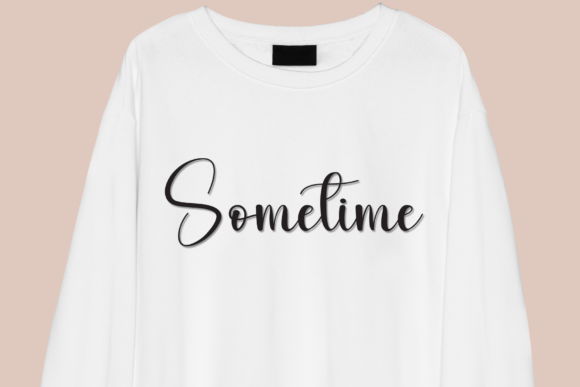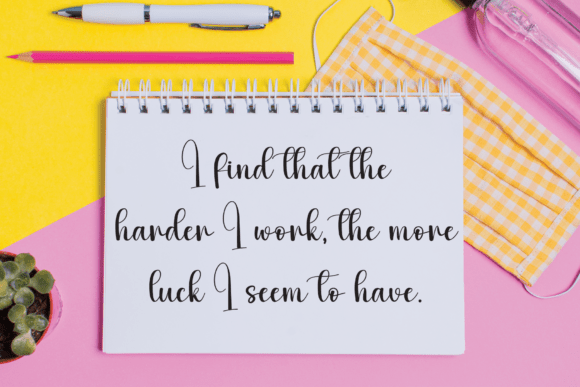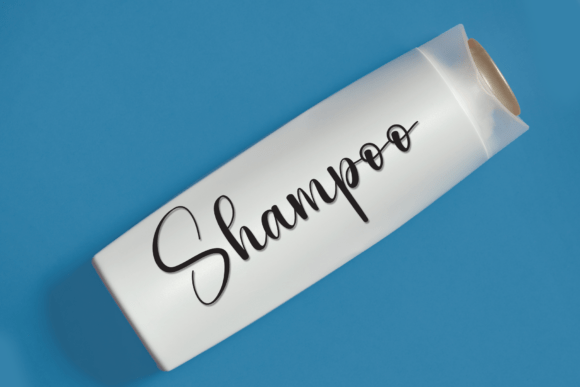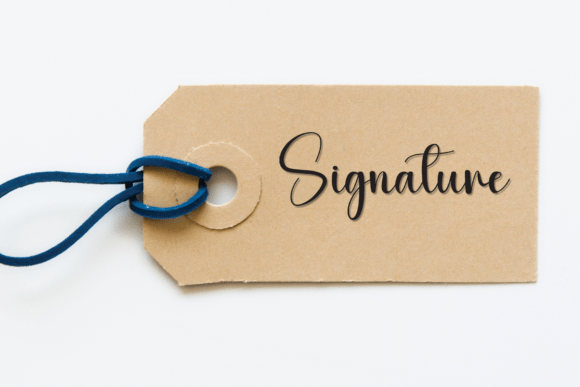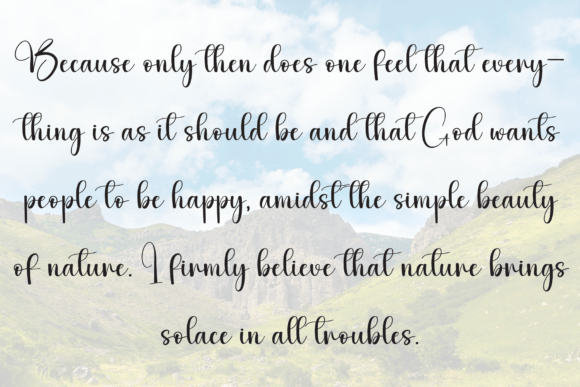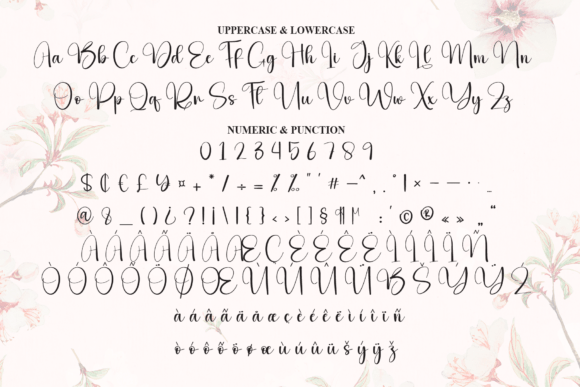
Bethany Font: Elevate Your Designs with Elegance and Sophistication
In the world of typography, a well-crafted font can make all the difference in elevating your design from ordinary to extraordinary. Introducing the Bethany font, a stylish script font that exudes elegance and contemporary charm. With its graceful strokes, fluid curves, and carefully crafted letterforms, Bethany captures the beauty of hand-drawn calligraphy with a modern twist.
The Beauty of Bethany Font
Bethany font is a masterful blend of traditional calligraphy and modern design. Its elegant strokes and fluid curves give it a natural flow that is both visually appealing and highly legible. The carefully crafted letterforms are designed to work seamlessly together, creating a beautiful and harmonious visual experience. Whether you’re designing a logo, invitation, packaging, or social media graphics, Bethany font is the perfect choice to add a refined and sophisticated touch to your design.
Key Features of Bethany Font
- Elegant and Contemporary Design: Bethany font boasts a stylish and modern design that is perfect for designers and crafters looking to add a touch of sophistication to their work.
- Graceful Strokes and Fluid Curves: The font features beautiful, flowing strokes and curves that give it a natural and effortless look.
- Carefully Crafted Letterforms: Each letterform is meticulously designed to work harmoniously with the others, creating a beautiful and cohesive visual experience.
- Versatile and Highly Legible: Bethany font is highly legible and versatile, making it perfect for a wide range of design applications, from logos and invitations to packaging and social media graphics.
Use Cases for Bethany Font
Bethany font is an incredibly versatile font that can be used in a variety of design applications. Here are some of the most popular use cases:
- Logos and Branding: Use Bethany font to create a sophisticated and elegant logo that reflects your brand’s values and personality.
- Invitations and Stationery: Add a touch of elegance to your invitations, wedding stationery, and other paper goods with Bethany font.
- Packaging Design: Use Bethany font to create eye-catching and sophisticated packaging that stands out on store shelves.
- Social Media Graphics: Elevate your social media graphics with Bethany font, perfect for creating engaging and professional-looking posts and stories.
Why Choose Bethany Font?
With so many fonts available, why choose Bethany font? Here are just a few reasons why Bethany font stands out from the crowd:
- Unique and Memorable: Bethany font is a unique and memorable font that will help your design stand out from the crowd.
- Elegant and Sophisticated: The font’s elegant and sophisticated design makes it perfect for designers and crafters looking to add a touch of refinement to their work.
- Highly Versatile: Bethany font is highly versatile and can be used in a wide range of design applications.
- Easy to Read and Legible: The font is highly legible and easy to read, making it perfect for body text and headlines.
Tips for Using Bethany Font
Here are a few tips for getting the most out of Bethany font:
- Use it Sparingly: Use Bethany font sparingly to create a focal point in your design. This will help draw attention to your message and create visual interest.
- Experiment with Colors and Textures: Experiment with different colors and textures to add depth and visual interest to your design.
- Pair it with Other Fonts: Pair Bethany font with other fonts to create a unique and visually appealing typography combination.
In conclusion, Bethany font is a stylish and elegant script font that is perfect for designers and crafters looking to add a touch of sophistication to their work. With its graceful strokes, fluid curves, and carefully crafted letterforms, Bethany font captures the beauty of hand-drawn calligraphy with a modern twist. Whether you’re designing a logo, invitation, packaging, or social media graphics, Bethany font is the perfect choice to elevate your design and make it stand out from the crowd.